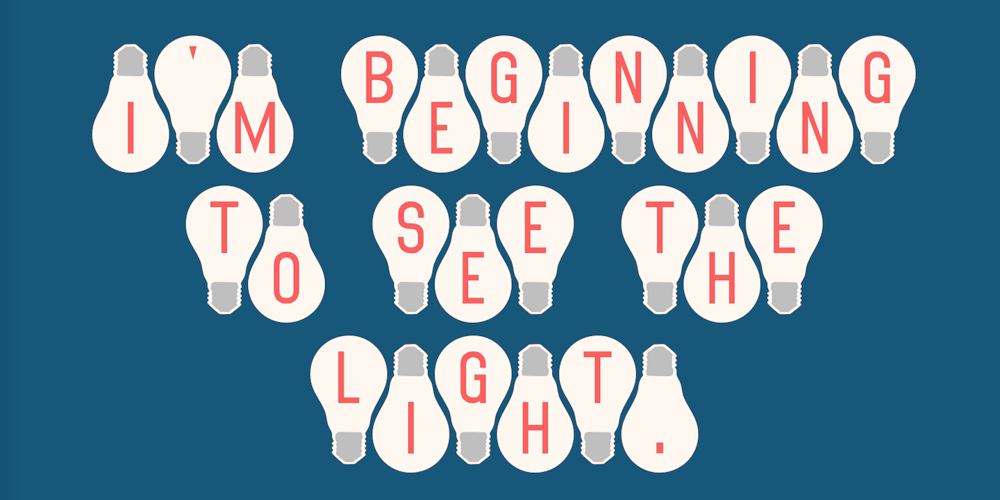
Bright Ideas
Bright Ideas font
Bright Ideas Font Family was designed by Robert Schenk and published by Ingrimayne Type. Bright Ideas contains 2 styles and family package options. The BrightIdeas family contains two novelty fonts that have letters on light bulbs. The fonts have some characters on standing bulbs and some on hanging bulbs and these two sets are made to alternate with the OpenType contextual alternatives (calt) feature. To use only one set of bulbs, this feature must be turned off and character spacing adjusted.The family contains a style with clear bulbs and one with filled bulbs. They can be used in layers to add color. Both are monospaced. The characters on the bulbs are derived from the font Myhota-Bold.